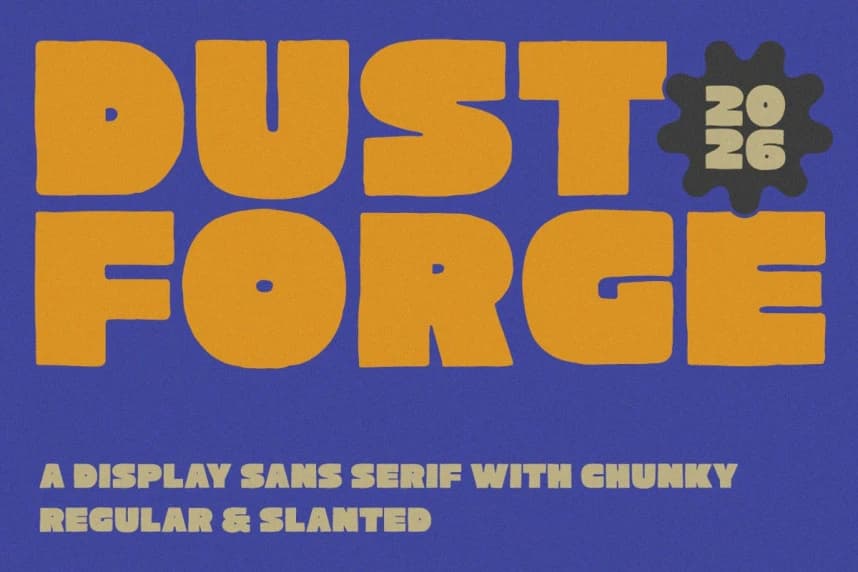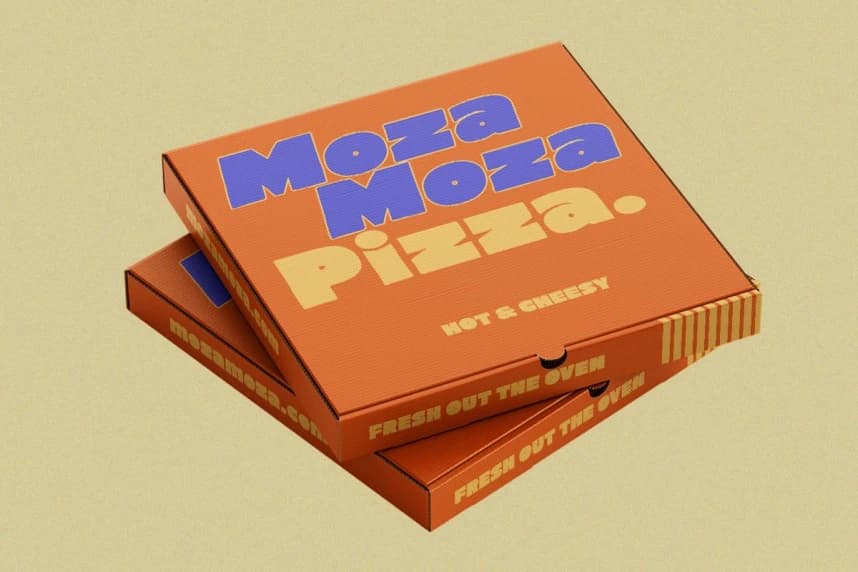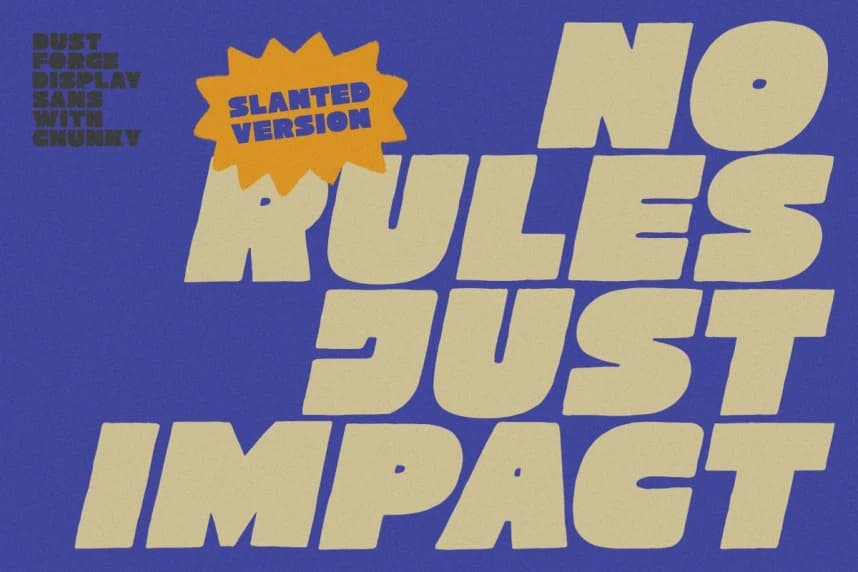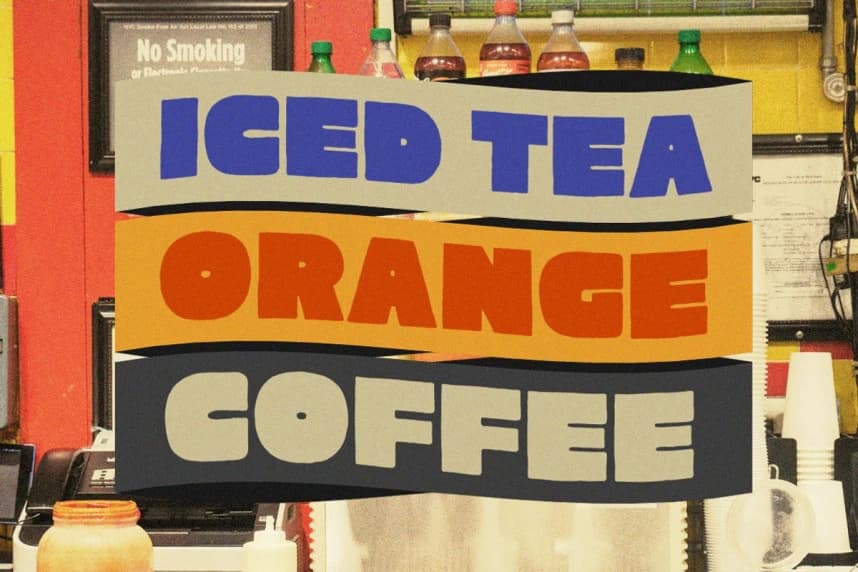
Dust Forge Font
Dust Forge Font is a chunky display sans serif that hits with a big BOOM! of retro energy and bold attitude. Built with thick curves, soft corners, and playful heavyweight shapes, this font brings instant eye-candy to posters